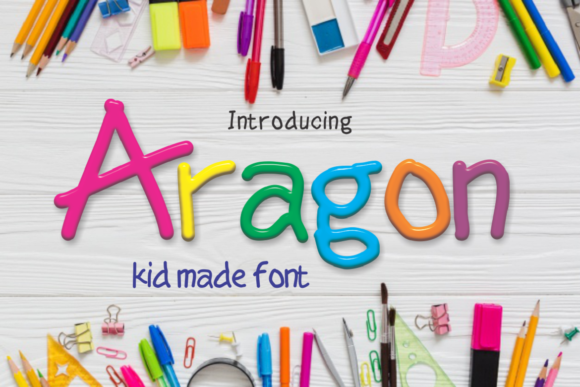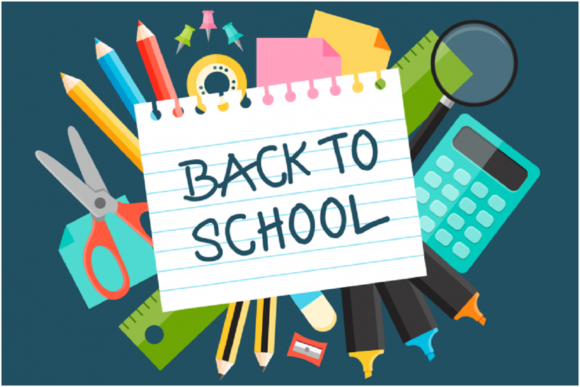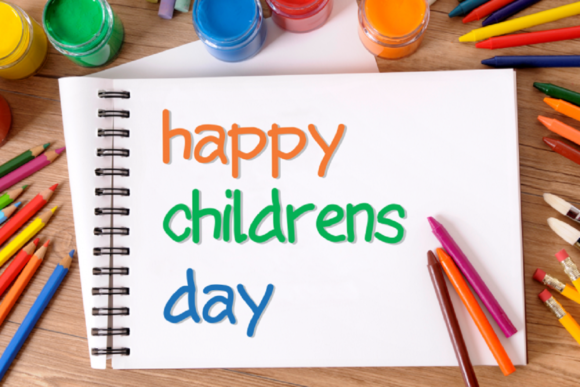
Aragon
About Aragon Font
Aragon is a cute and colorful display font. Fall in love with its incredibly versatile style and use it to create spectacular designs!